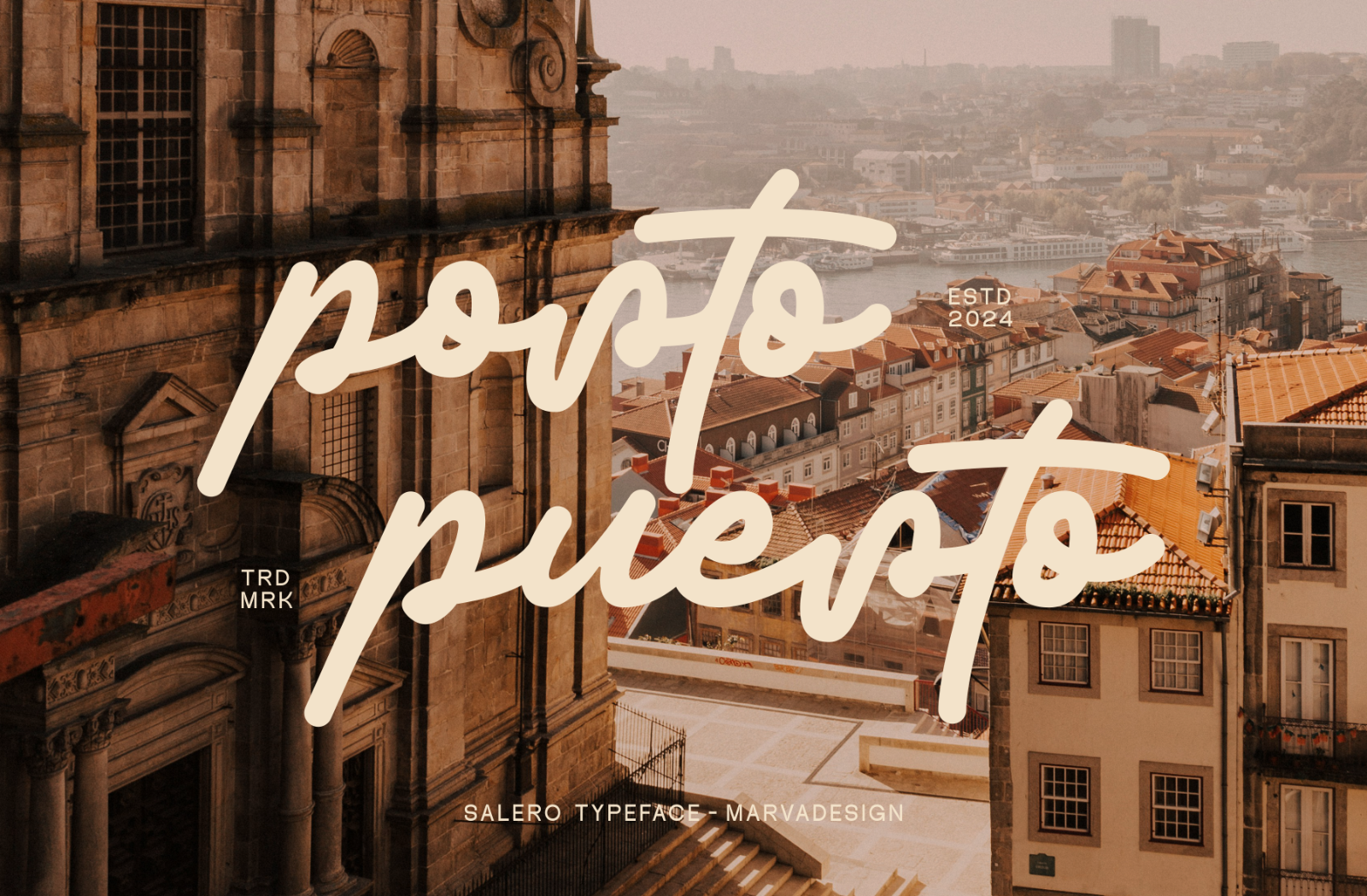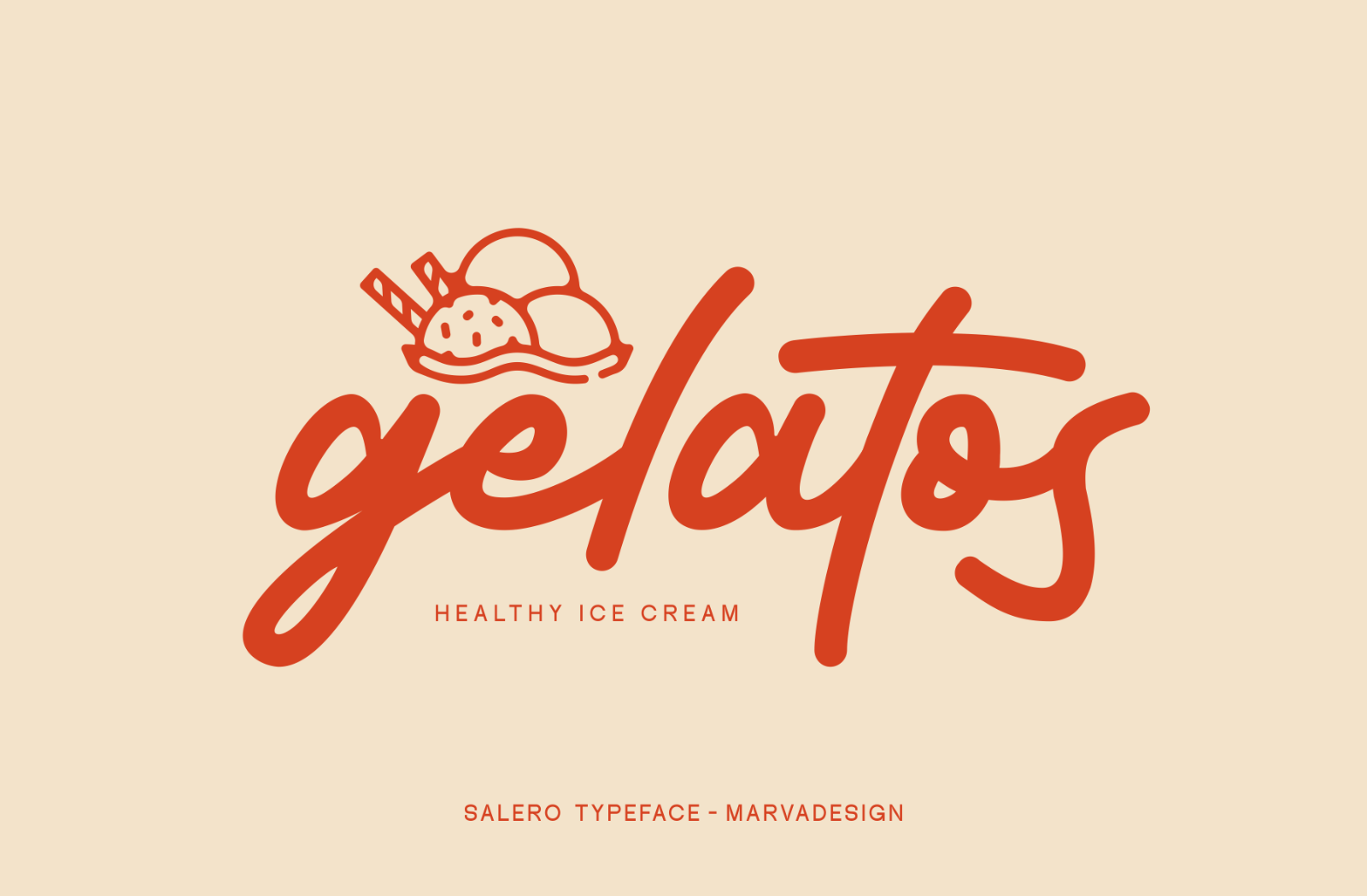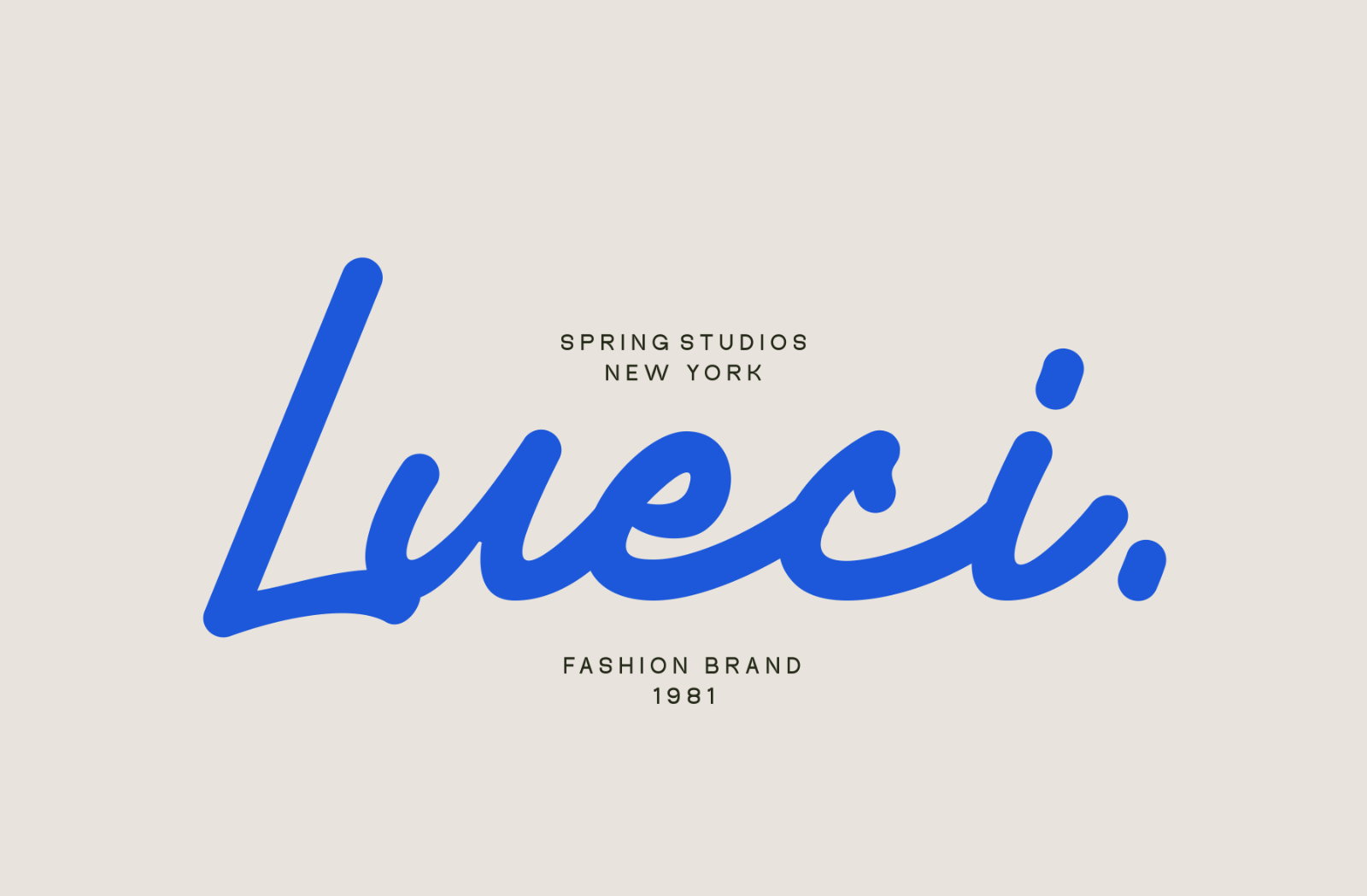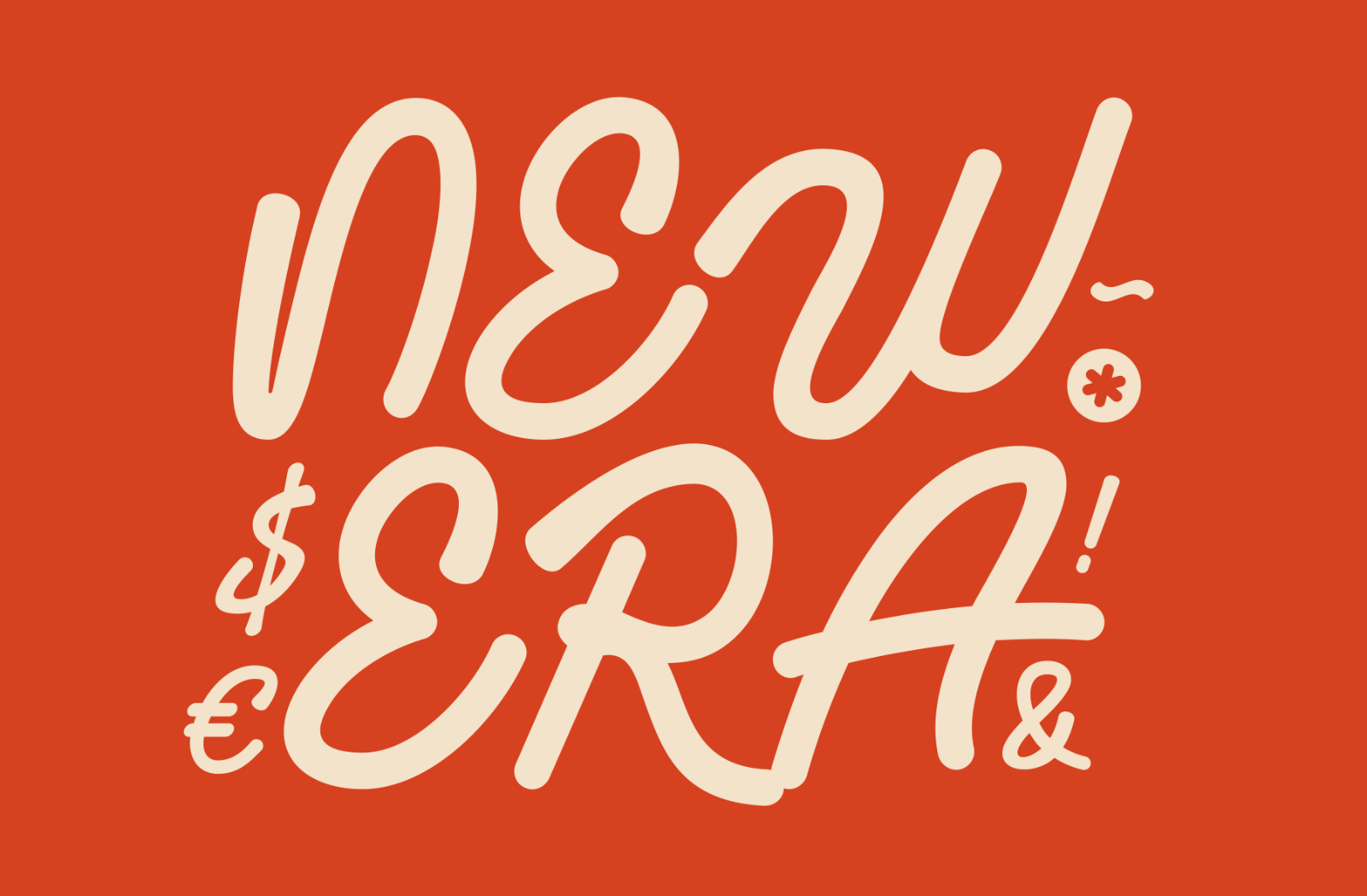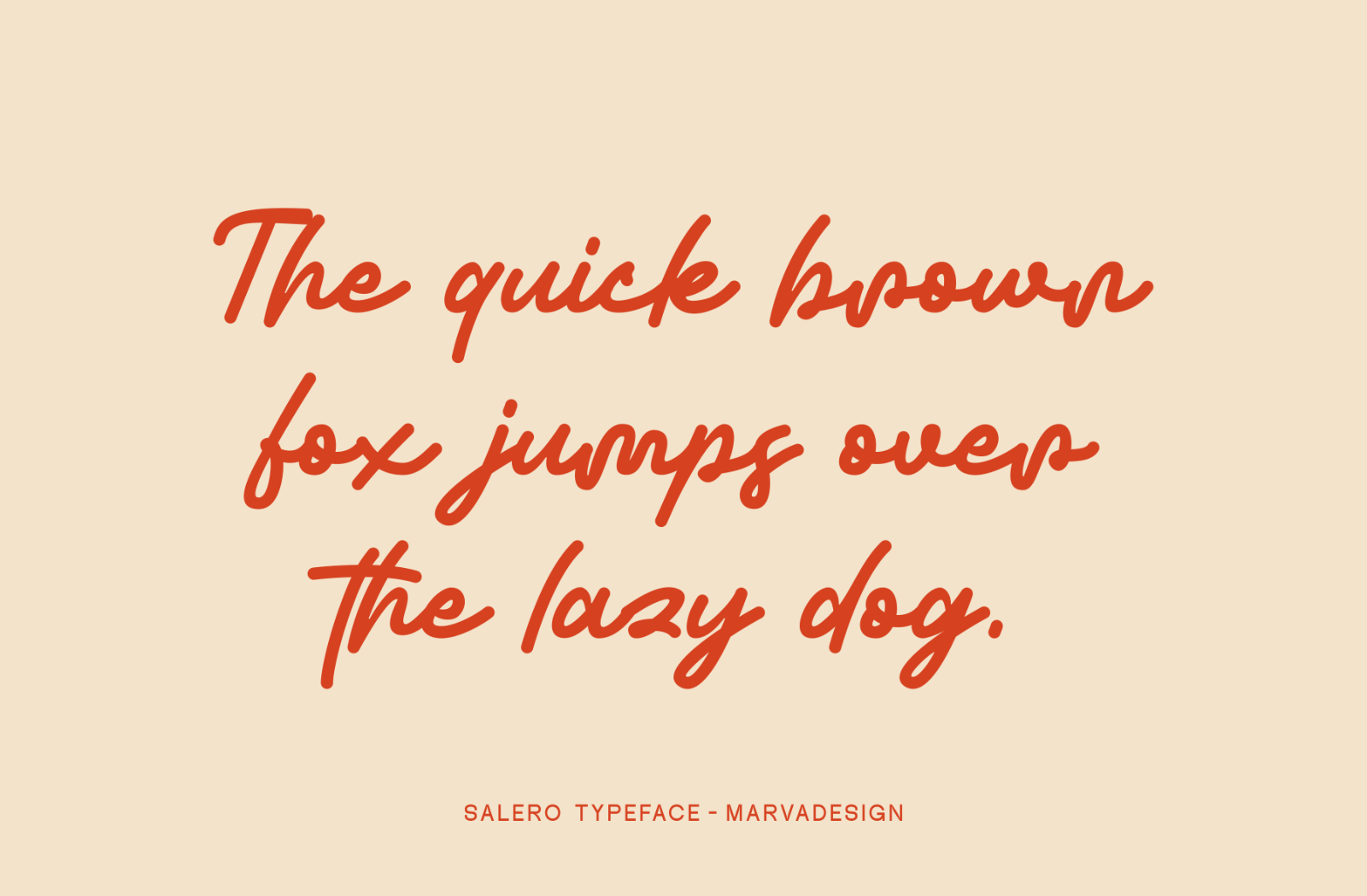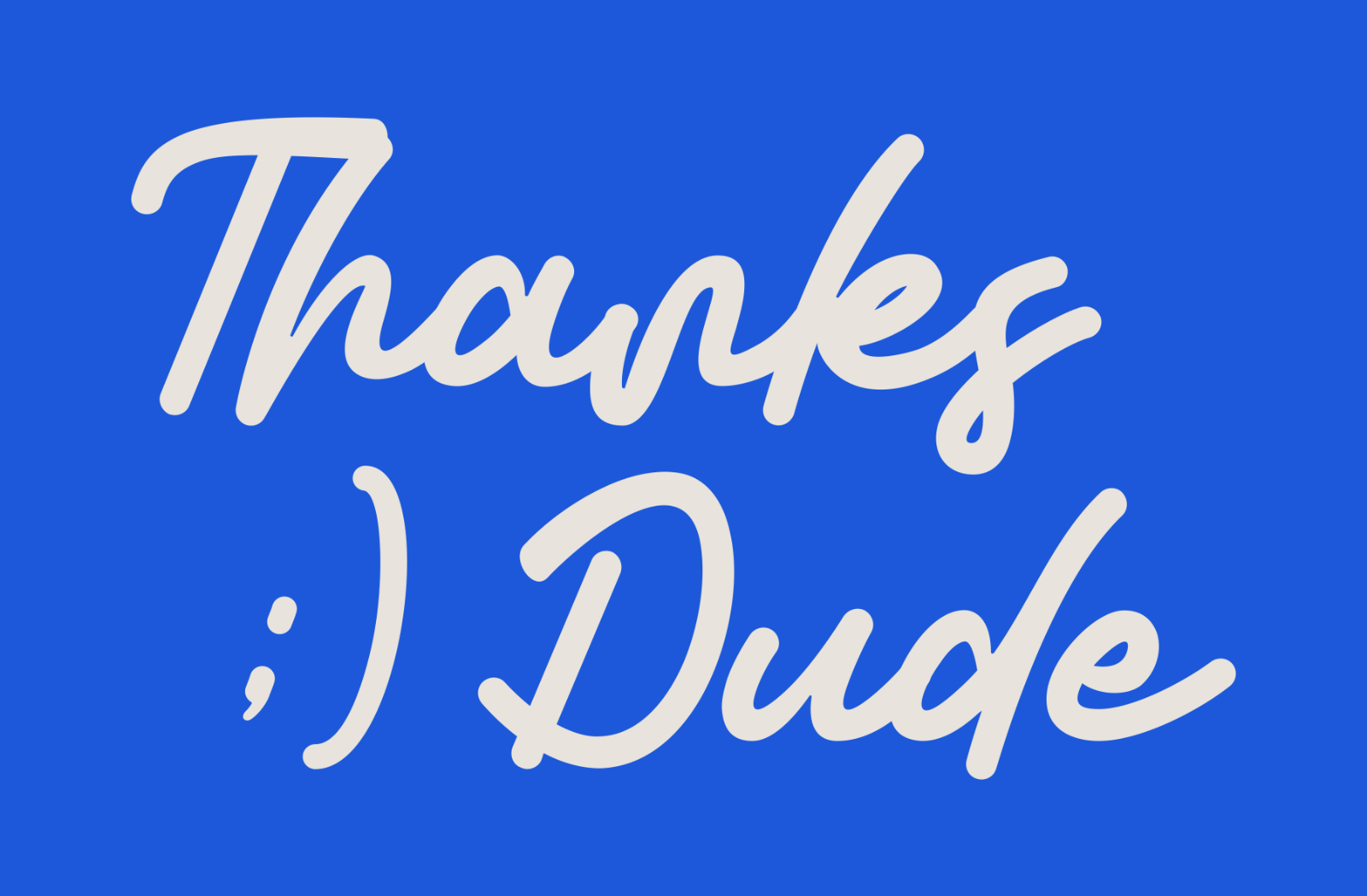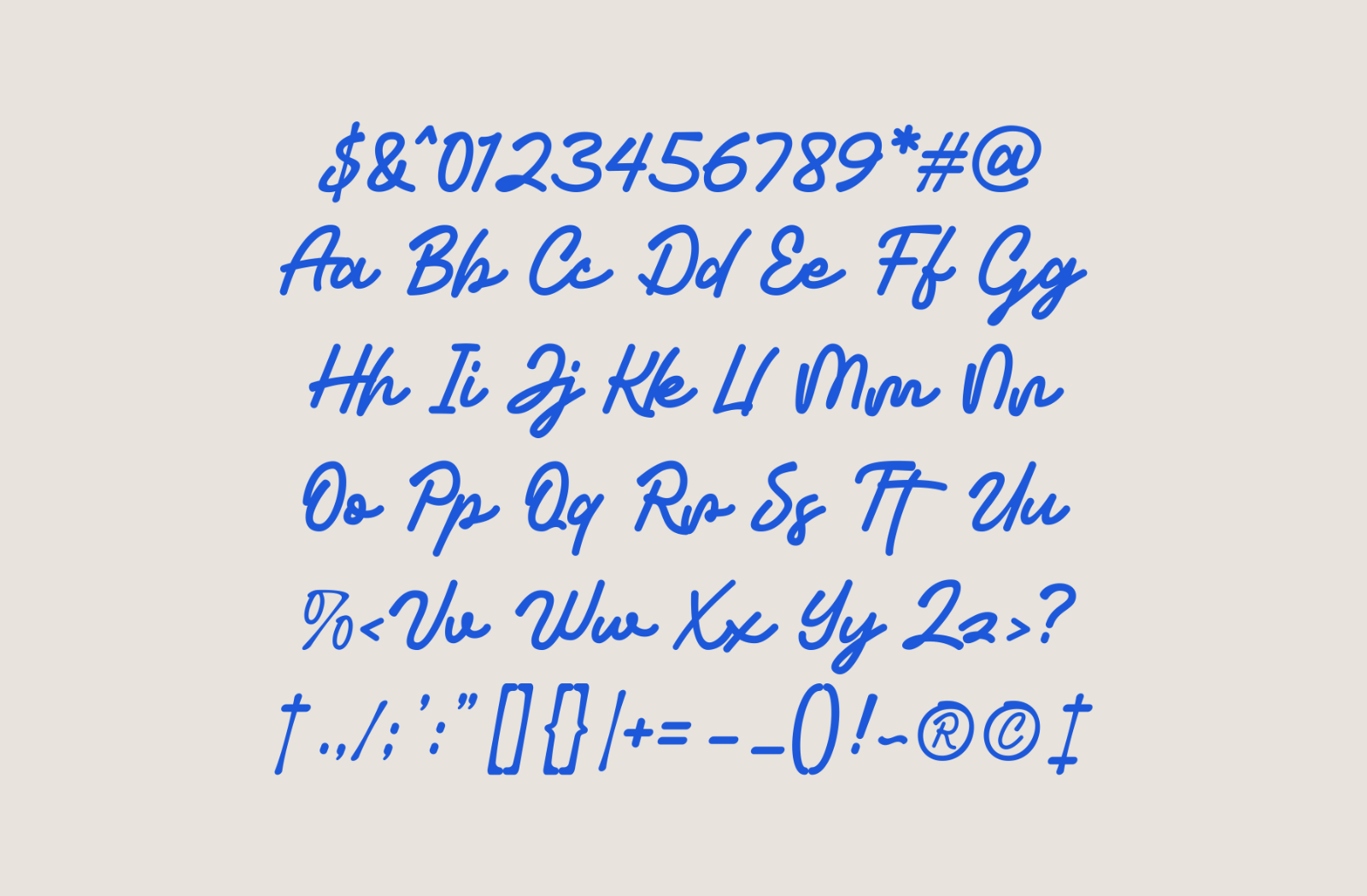
Introducing Salero is a script and handwritten font that exudes a distinctive character in every glyph. Its unique design combines the fluidity of handwritten strokes with fine details, creating a sophisticated and artistic appeal. Each letter is carefully crafted to ensure a harmonious visual flow, making it ideal for longer text compositions.
The font supports multiple languages, providing flexibility for a variety of linguistic applications while maintaining its aesthetic integrity. Additionally, Salero includes several stylistic alternatives in its lowercase, offering users even more creative flexibility in their typography designs.